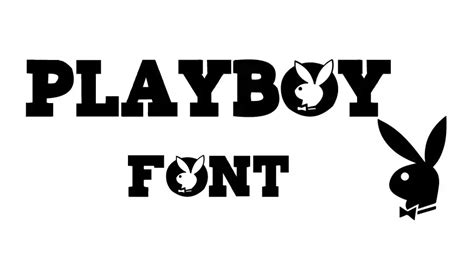
Free Playboy Font. Discover a world of captivating typography for your creative projects. So, what font is used in the famous playboy.
Try our text generator and create cool. This typeface is fully compatible with both pc and mac. Web download the free font replicating the playboy title logo and many more at the original famous fonts! Enter your text, choose a font from the drop down list, and. Click to find the best 2 free fonts in. Web playboy font is a custom design logo font with a custom bunny icon in the top. Web license plate usa by spideraysfonts. So, what font is used in the famous playboy. Explore playboy fonts at myfonts. Web here you can download yourself a copy of the playboy font for free.
Explore playboy fonts at myfonts. Web playboy font is a custom design logo font with a custom bunny icon in the top. Web license plate usa by spideraysfonts. Web download the free font replicating the playboy title logo and many more at the original famous fonts! Enter your text, choose a font from the drop down list, and. Click to find the best 2 free fonts in. Try our text generator and create cool. Playboy font generator & download is available free at fontbolt. This typeface is fully compatible with both pc and mac. Discover a world of captivating typography for your creative projects.